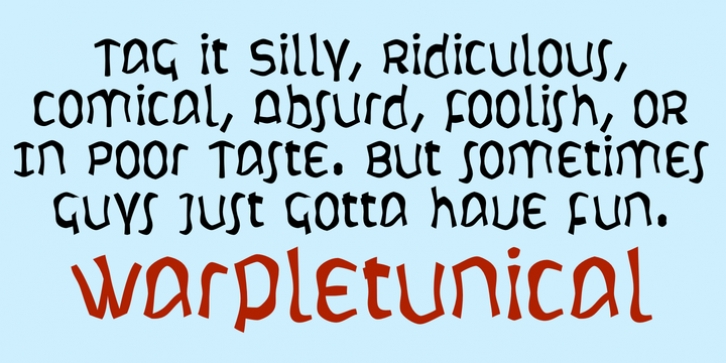
WarpLetunical downloadDesigner: Robert Schenk
Publisher: Ingrimayne Type
A warped version of the font Letunical, WarpLetunical has a Halloweenish feel to it.